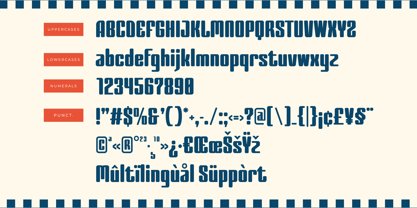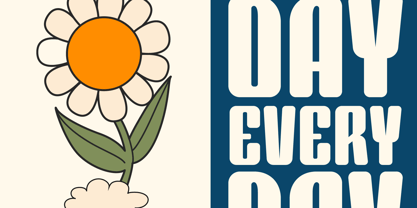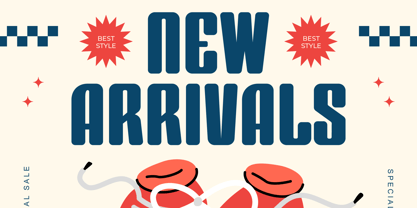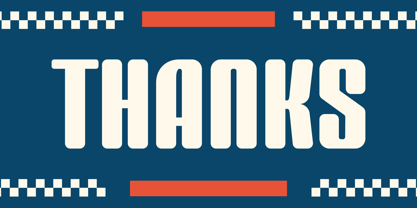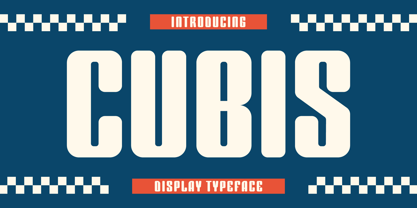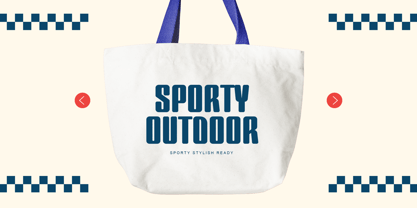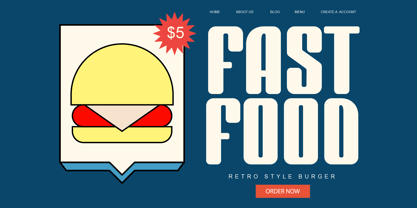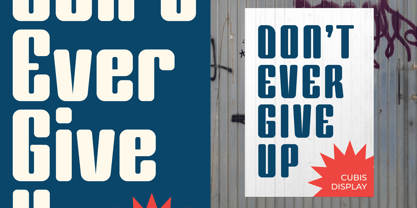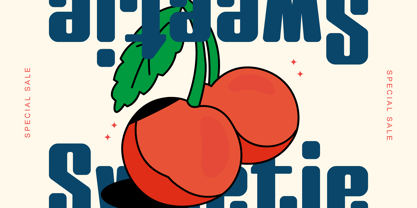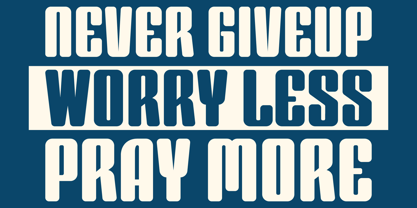
Cubis
Meet Cubis: The Bold, Blocky Typeface with a Retro Twist
Make a statement that nobody can ignore. Cubis is a heavy, condensed display typeface engineered for high-impact visual design. Striking the perfect balance between retro charm and contemporary athletic edge, Cubis brings maximum volume and undeniable personality to your text.
With its tall, blocky silhouettes and smoothly rounded outer corners, Cubis mimics a modern, geometric aesthetic while retaining a playful, chunky vintage vibe. Whether you are aiming for a classic 90s sportswear aesthetic, a retro fast-food joint look, or a bold streetwear brand identity, Cubis commands the room.
Key Features:
• High-Impact Condensed Forms: Tall, heavy letterforms designed to maximize space and capture immediate attention.
• Distinct Character Styling: Unique stylistic quirks, like the stylized curves on the lowercase "a", "g", and "z", add an authentic, custom-lettered feel.
• Full Character Set: Includes a cohesive collection of Uppercases, Lowercases, Numerals, and essential Punctuation.
• Multilingual Support: Equipped with accents and diacritics (Mûltïlïngùål Süppòrt) to ensure your designs look great globally.
Perfect For:
• Merchandise & Apparel: Perfect for graphic tees, tote bags, and sporty streetwear brands looking for that "sporty, stylish, ready" look.
• Branding & Packaging: Instantly elevates retro-style branding, fast-food menus, and product packaging with a fun, bold attitude.
• Posters & Editorial Layouts: Create eye-catching motivational posters, event flyers, and massive headline layouts that stand out against urban backdrops.
• Web & Social Media: Ideal for massive banner text, sale promotions ("New Arrivals"), and digital graphics that need to pop on mobile screens.